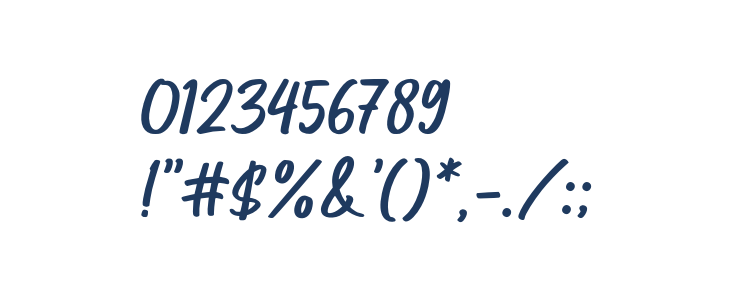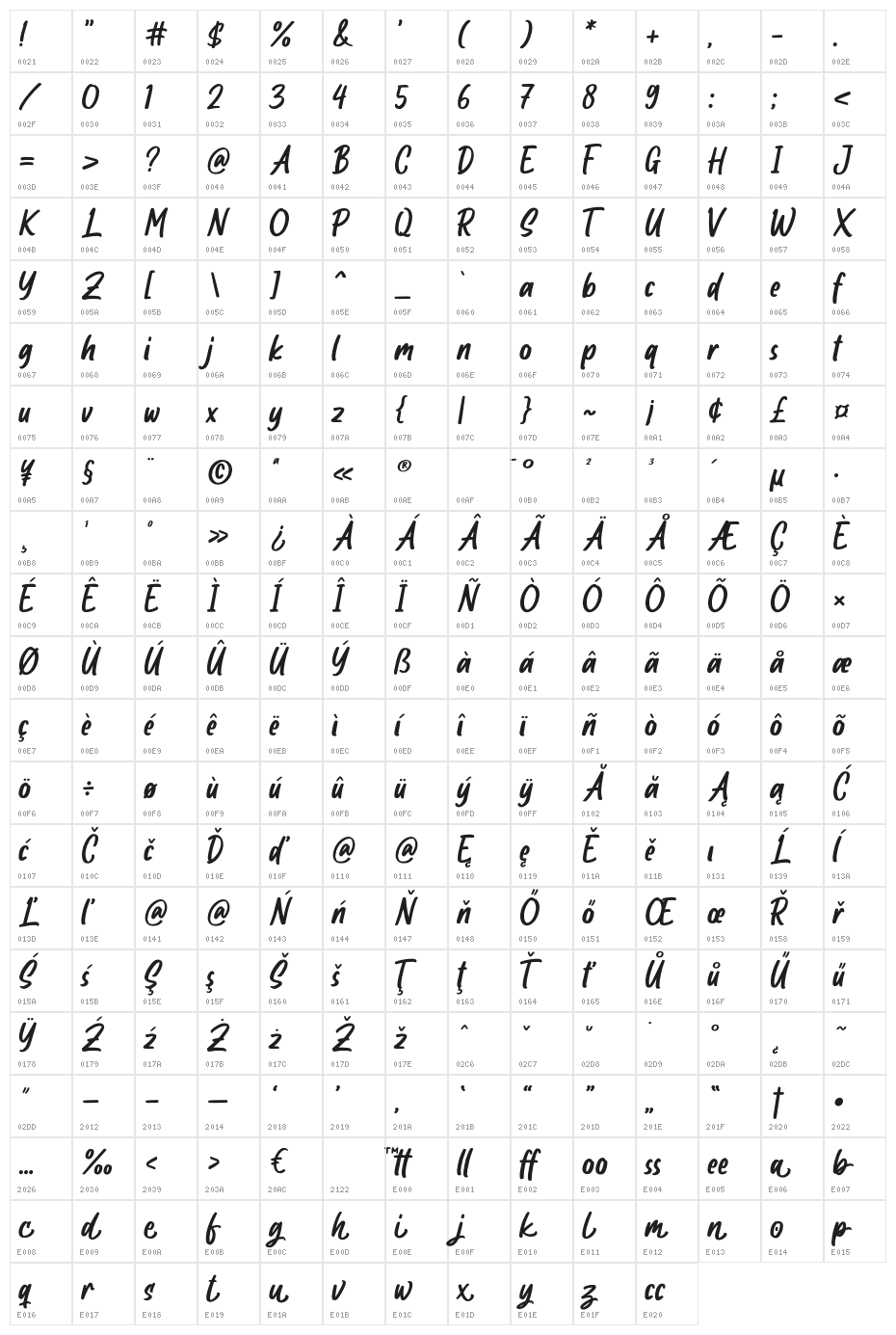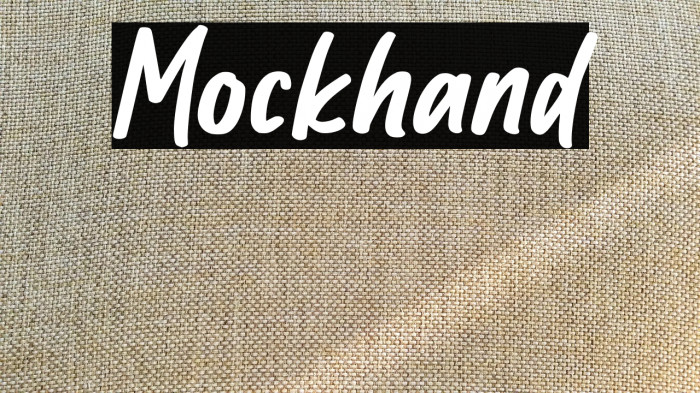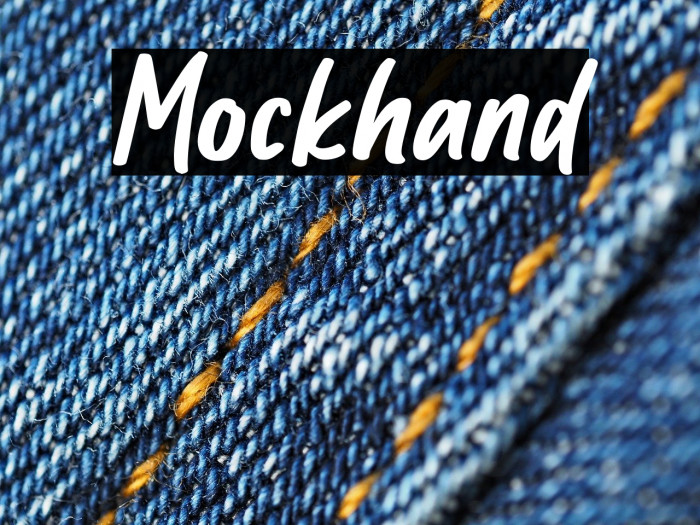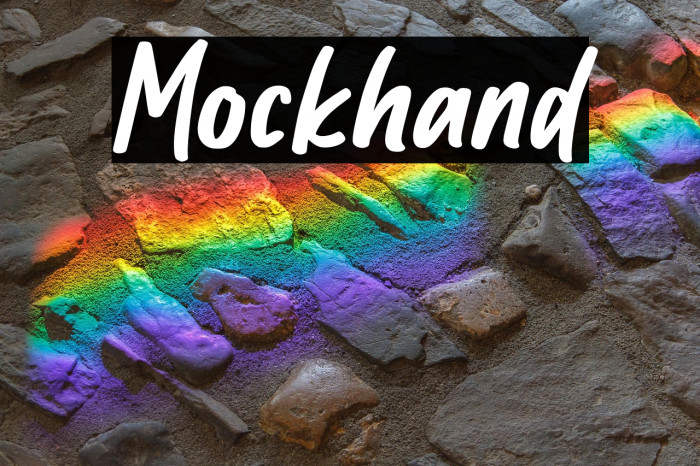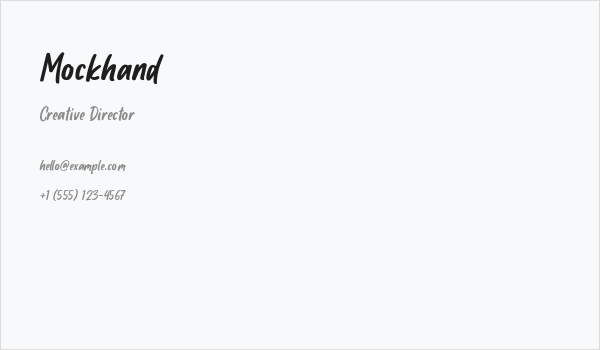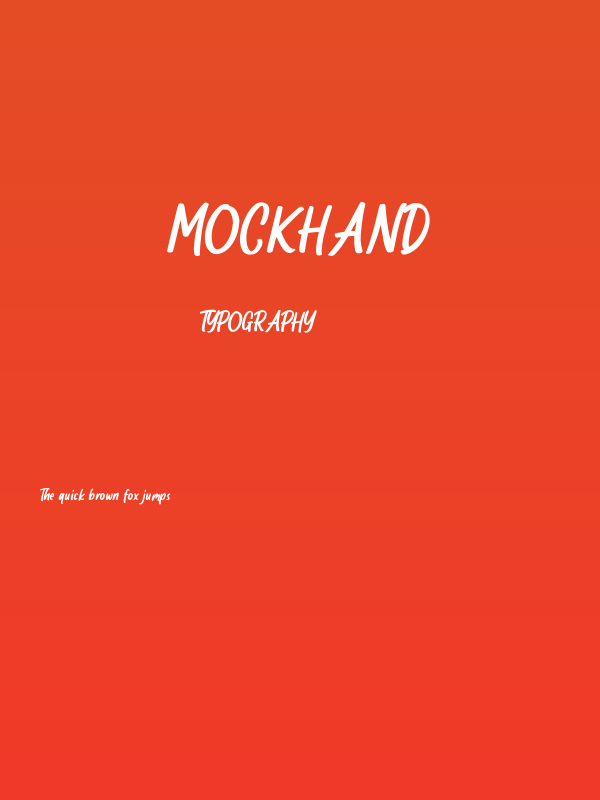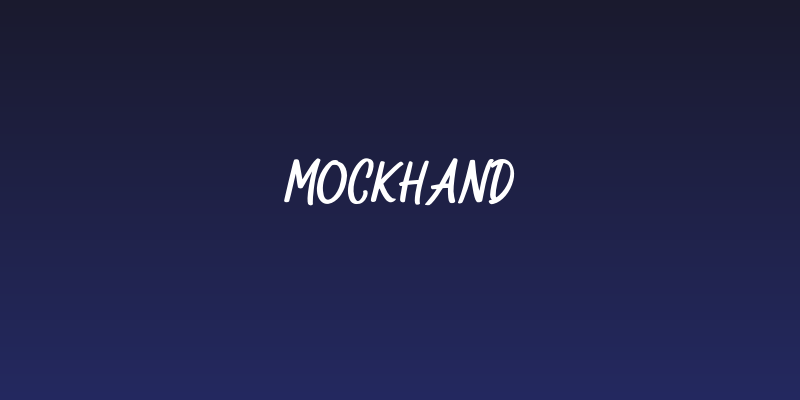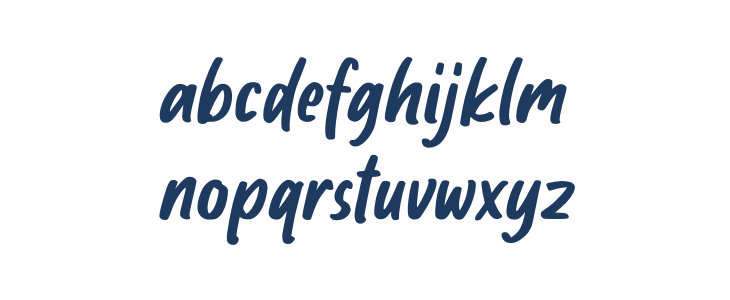
Mockhand Font
Mockhand Description
This font features a lively and dynamic handwritten style, characterized by its fluid and natural strokes. The letters are slightly slanted, giving a sense of motion and energy. The uppercase and lowercase letters maintain a consistent style, with rounded edges and a casual feel. The numerals and special characters are designed to match the playful and informal aesthetic, making it suitable for creative and personal projects. The overall appearance is approachable and friendly, with a touch of spontaneity that mimics authentic handwriting.
| Use Case | Headlines, Personal projects, Creative designs |
| Proposed Projects | Ideal for greeting cards, invitations, personal branding, and creative projects that require a personal touch. |